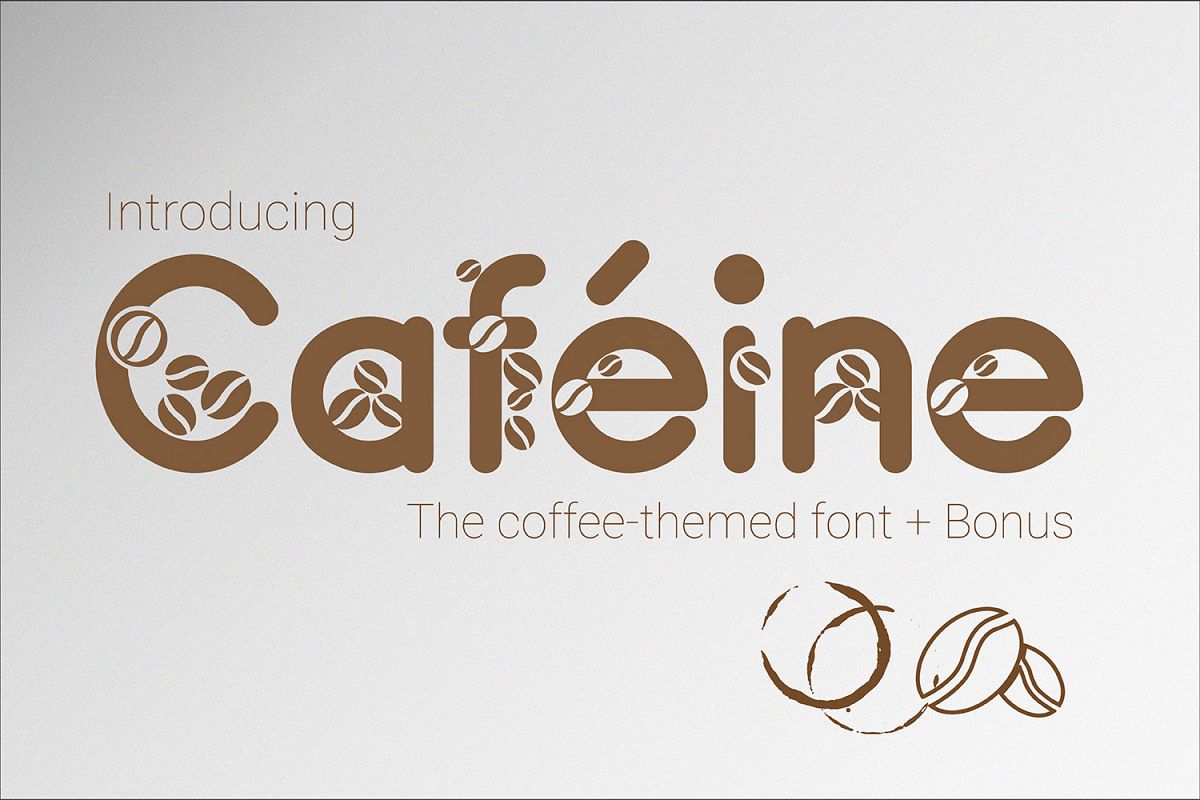
cafeine
caféine is a coffee-themed font, made in
detail for the coffee business as well as for the coffee-loving community. This
font is perfect for brands, logos, promotions, as well as all purposes related
to the theme of coffee.
to strengthen the
theme of coffee, then I also provide a bonus font from the icon icon that is